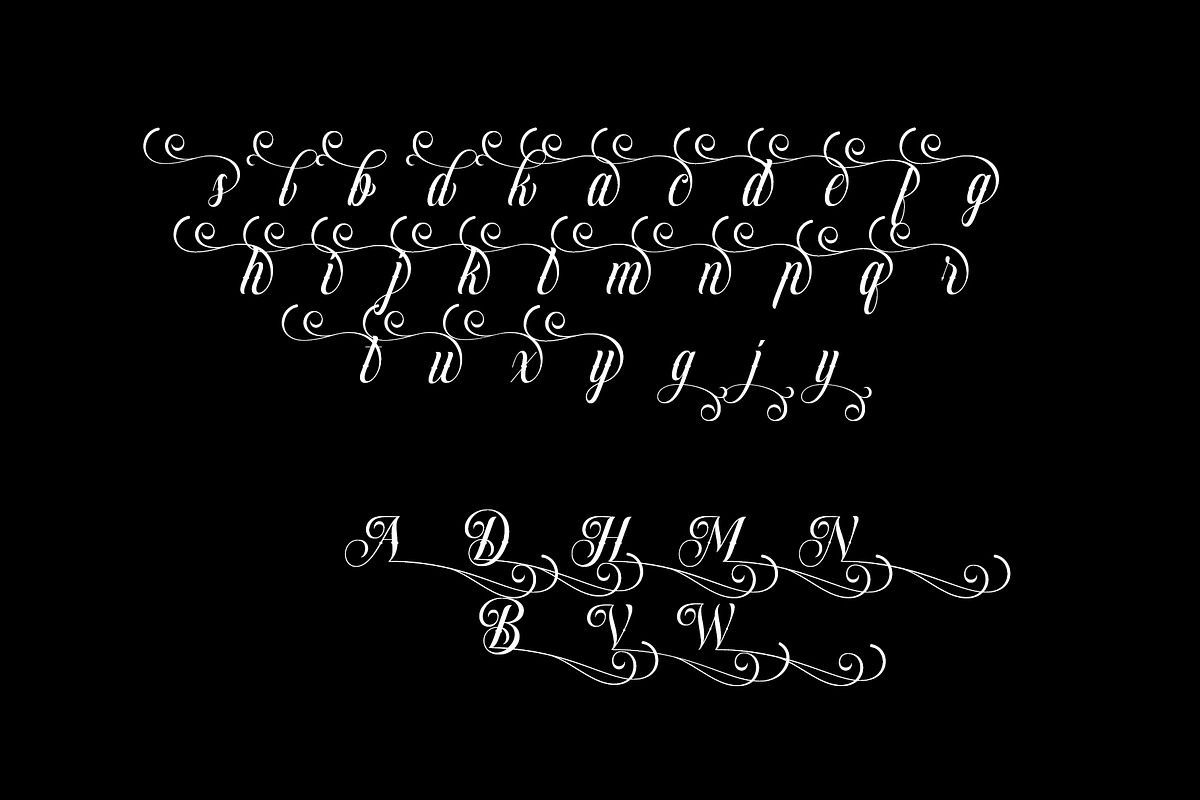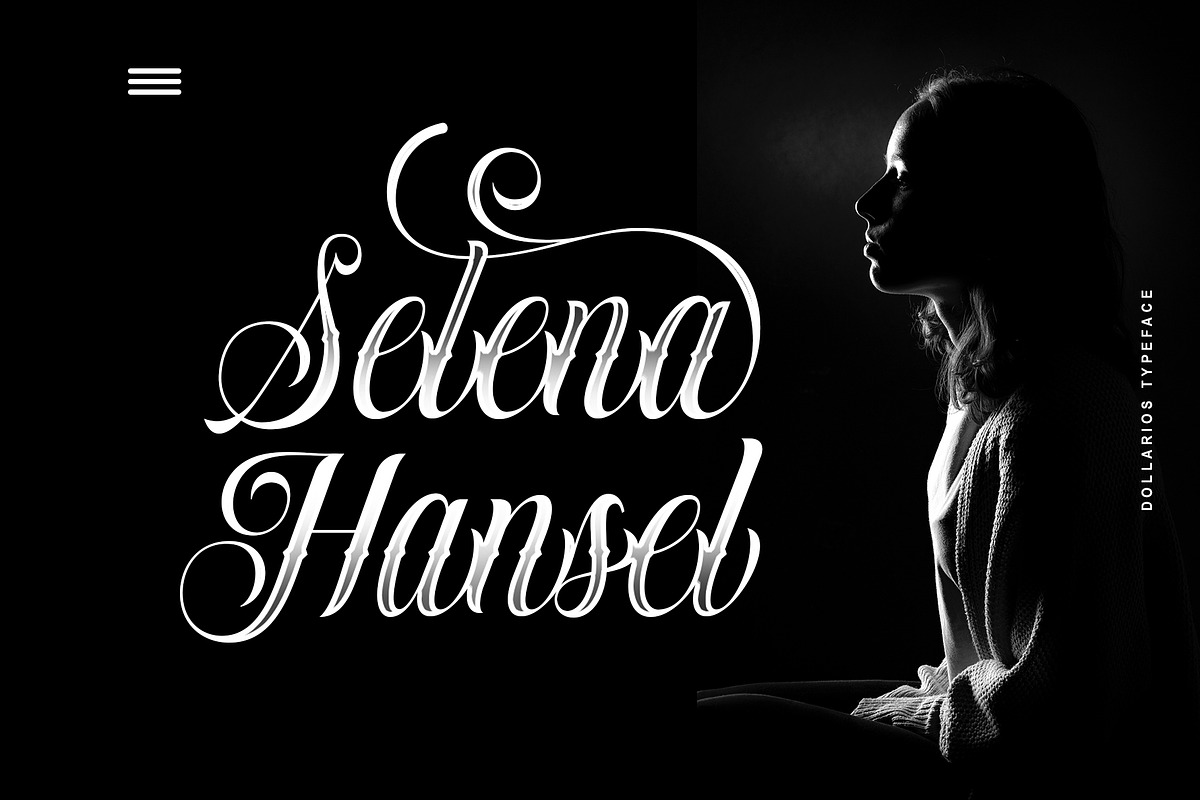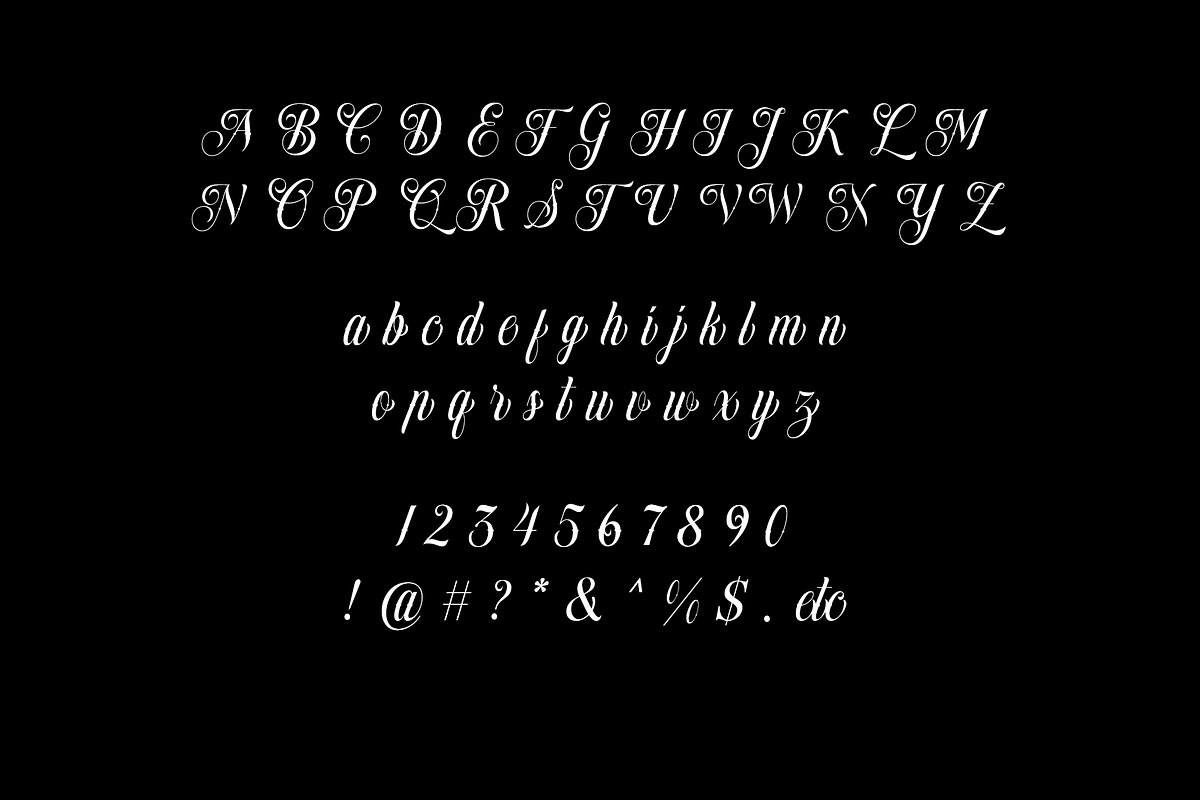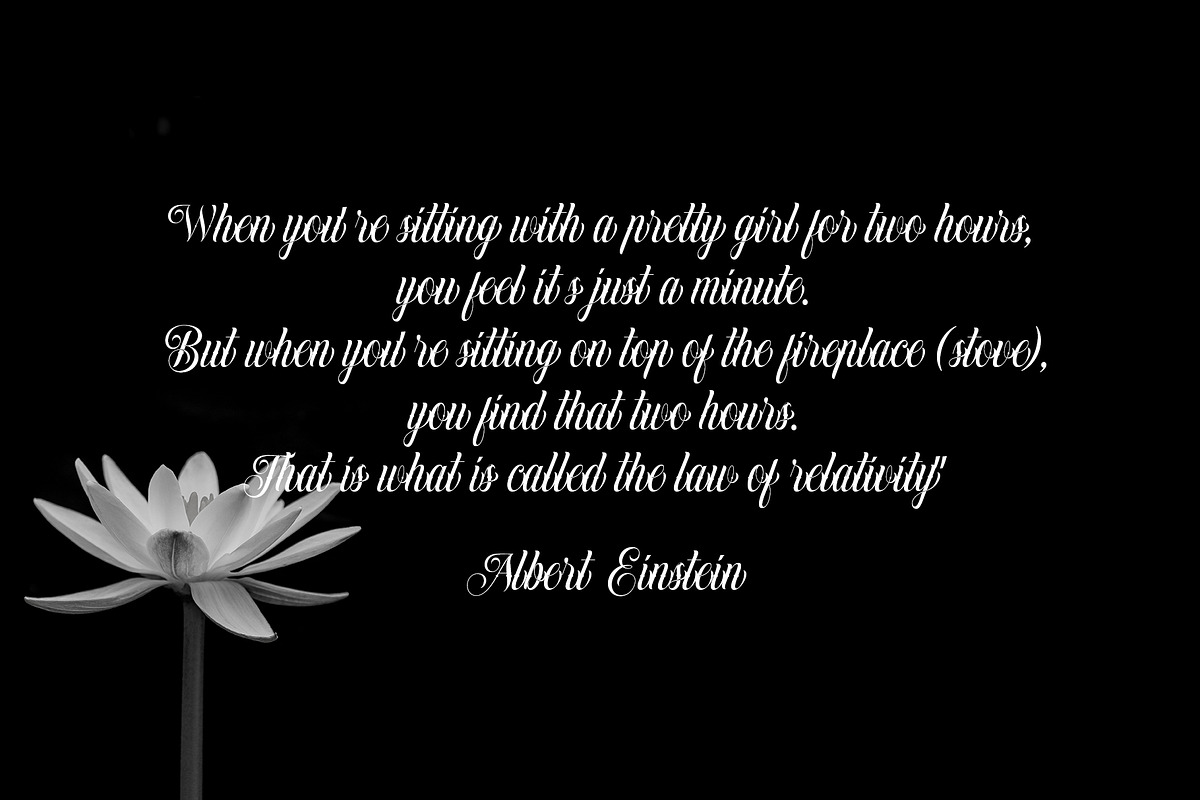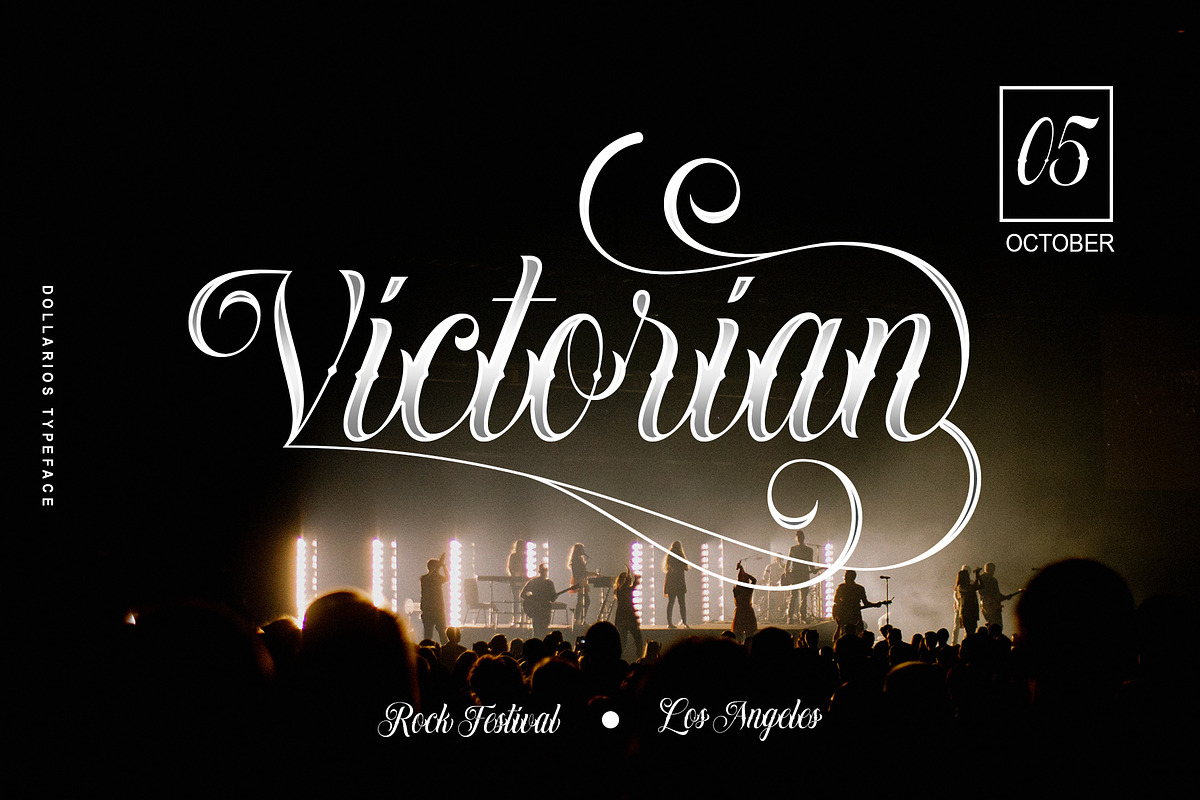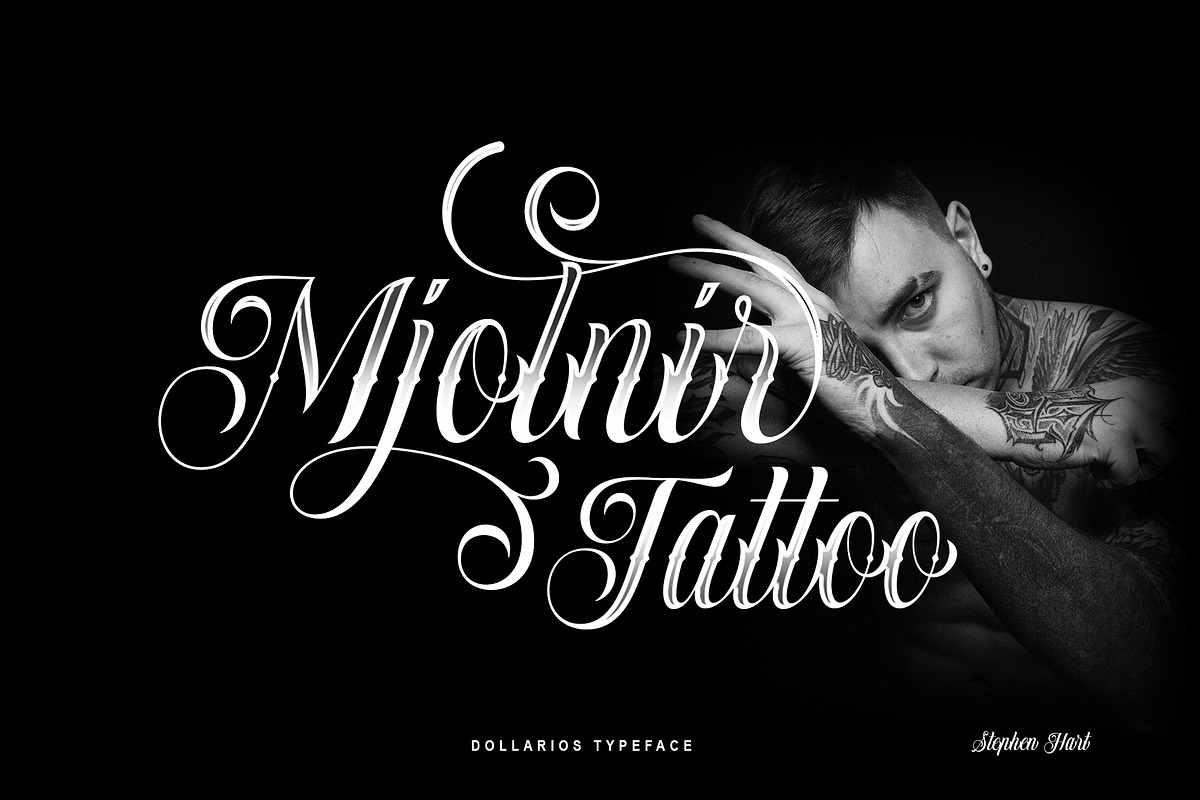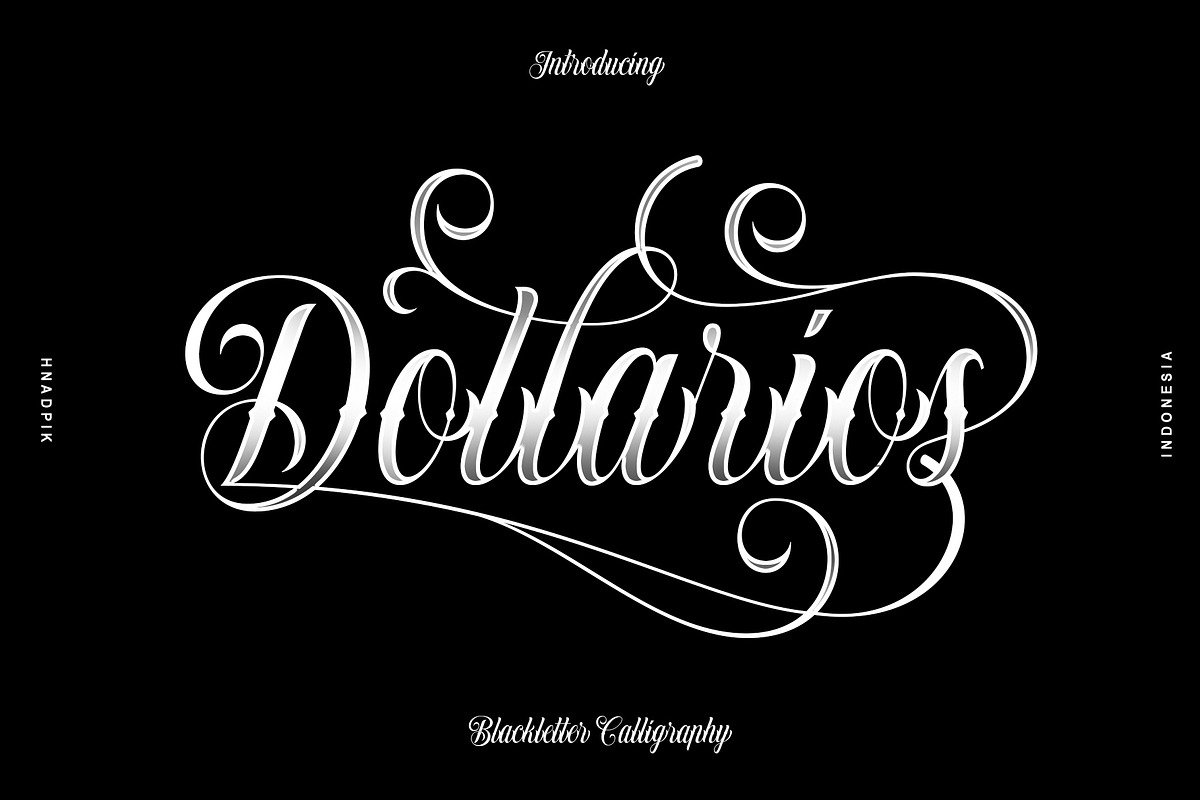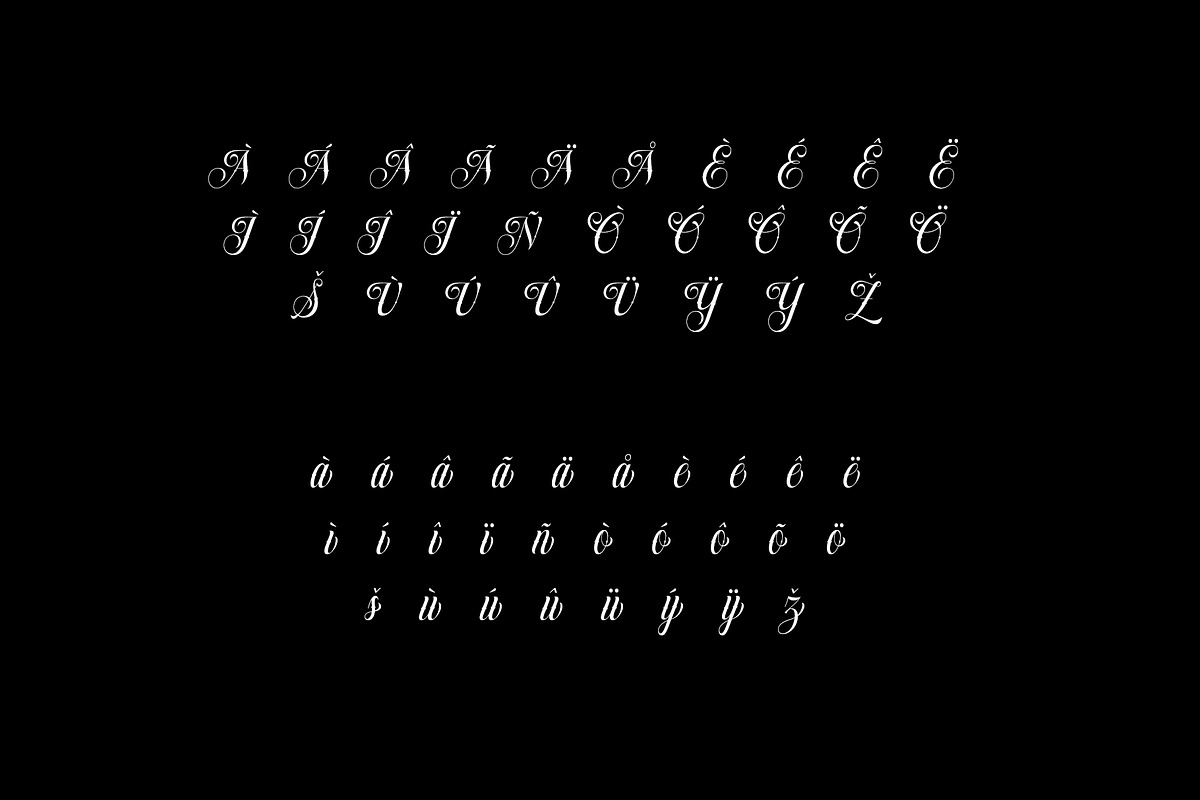
Dollarios - Calligraphy
Dollarios. this is a font with a modern Blackletter Calligraphy style, it is very suitable to explore the creativity of your work in the fields of logos, bands, posters etc.
Feature : - Uppercase - lowercase - numeral - functional - Multilingual